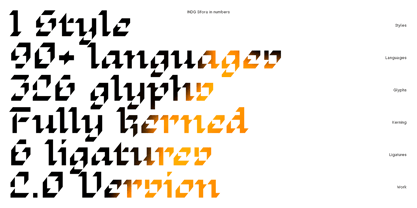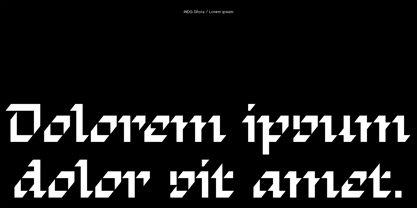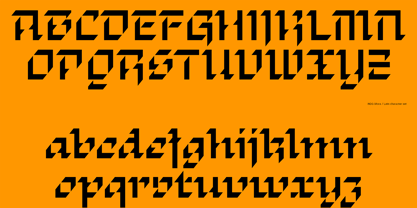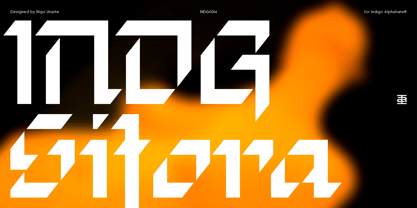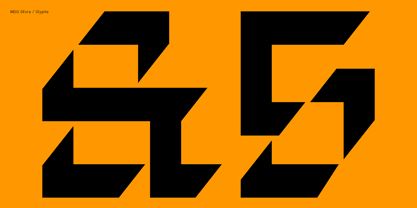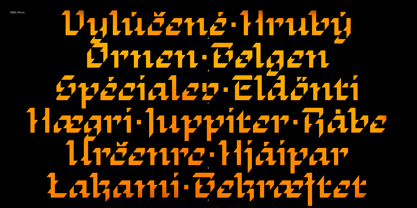
INDG Sifora
by Iñigo Uriarte
Enter INDG Sifora—the font that emerges from this fractured reality. It’s the perfect fit for your next rave flyer, sports graphics, or a scene from a science fiction world in which language is both weapon and code. You decide the boundary—this typeface thrives in any dystopian future.
With its sharp, cutting-edge expression and subtle Gothic undertones, Sifora embodies the voice of a world gone chaotic, yet still holding tight to order. It’s the font you’d expect to hear when Judge Dredd speaks or when the digital frontier calls.
Designers: Iñigo Uriarte
Foundry: Iñigo Uriarte